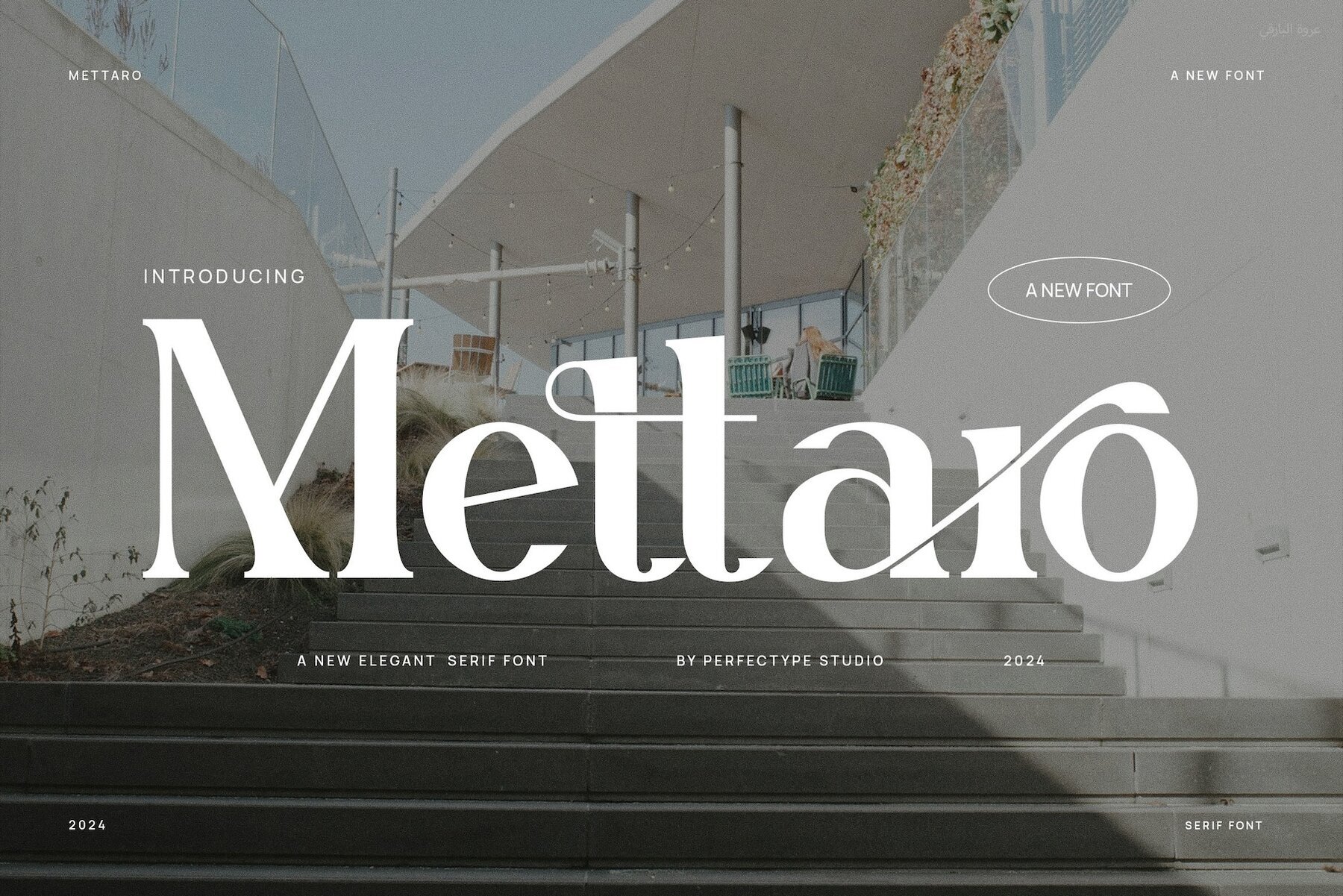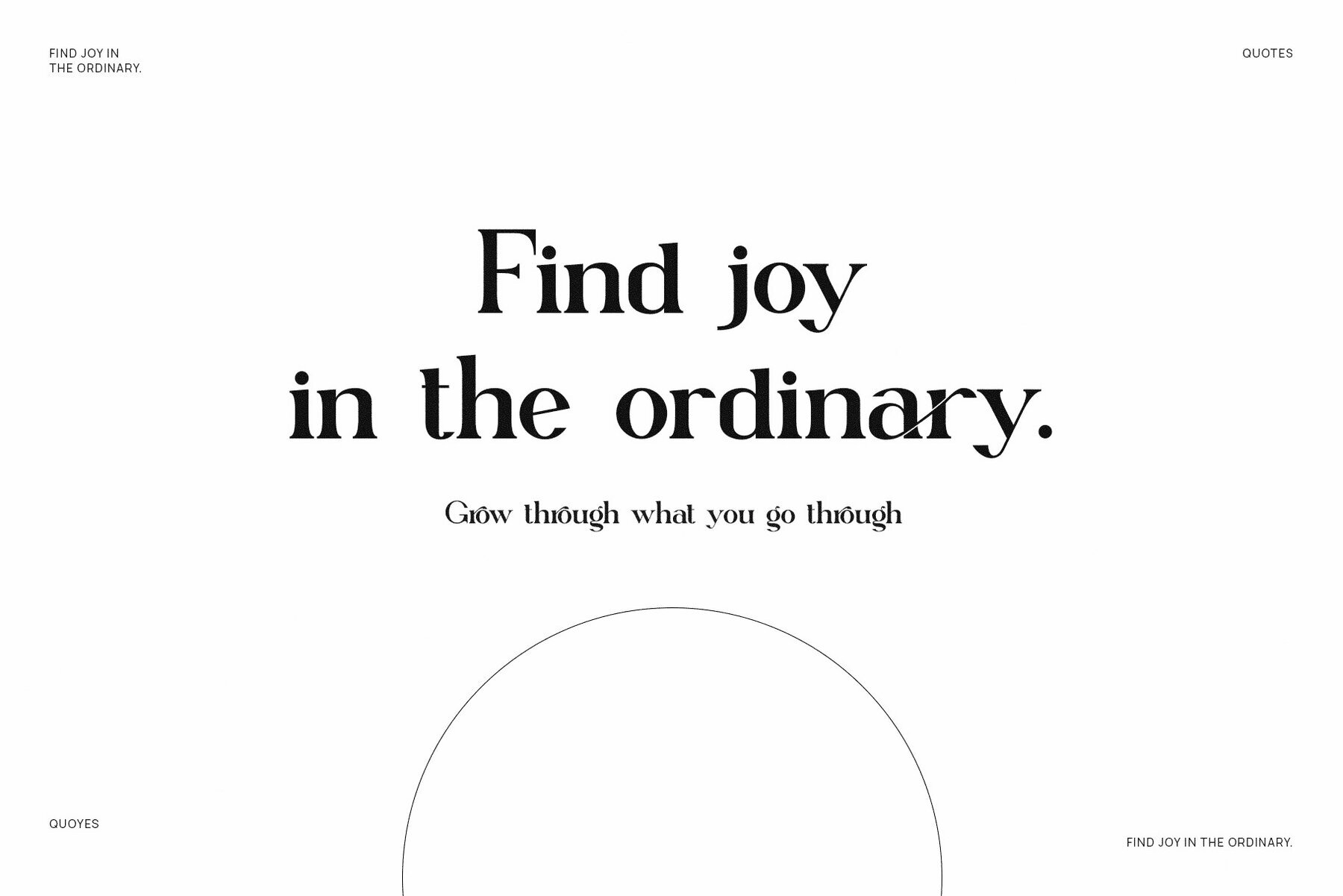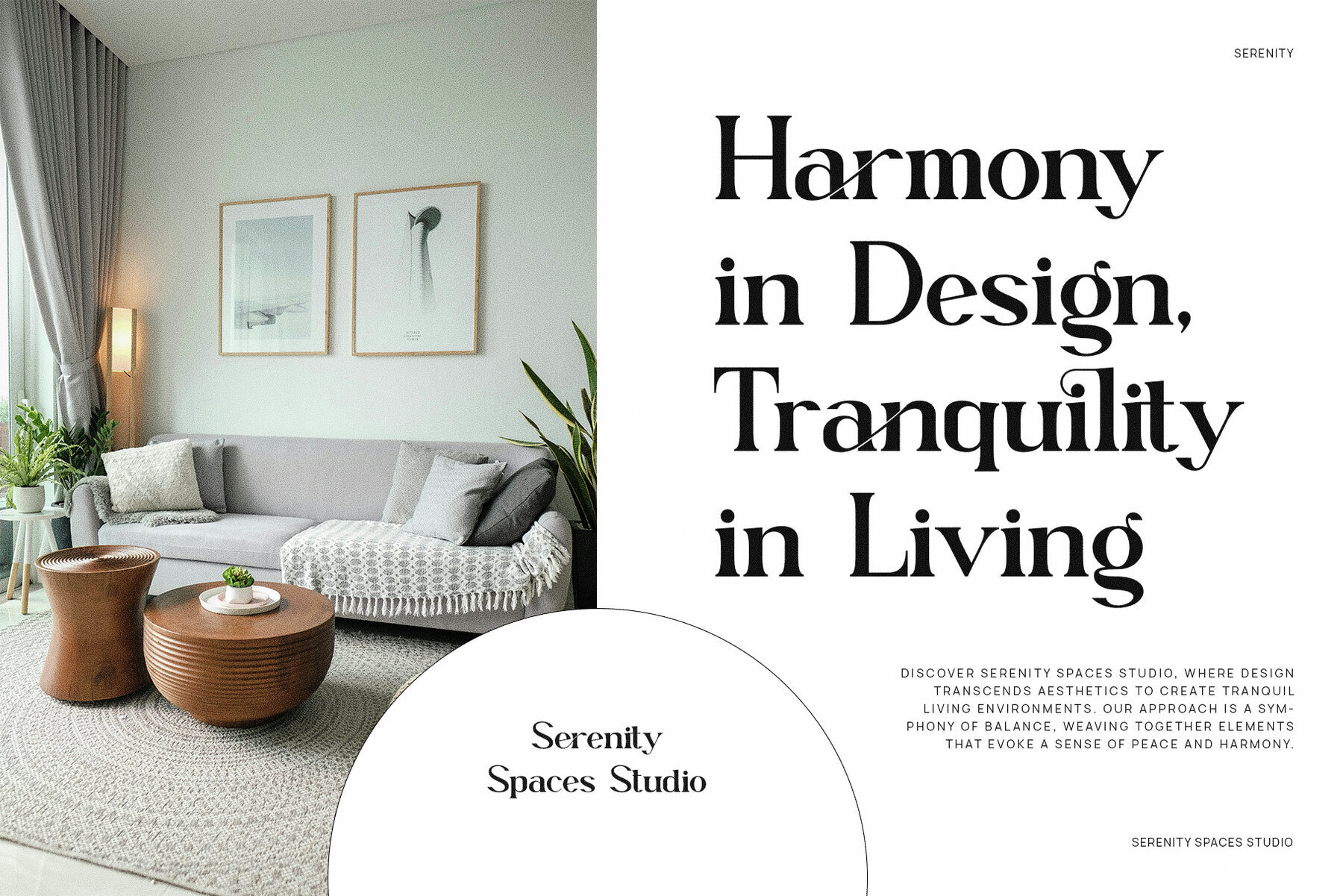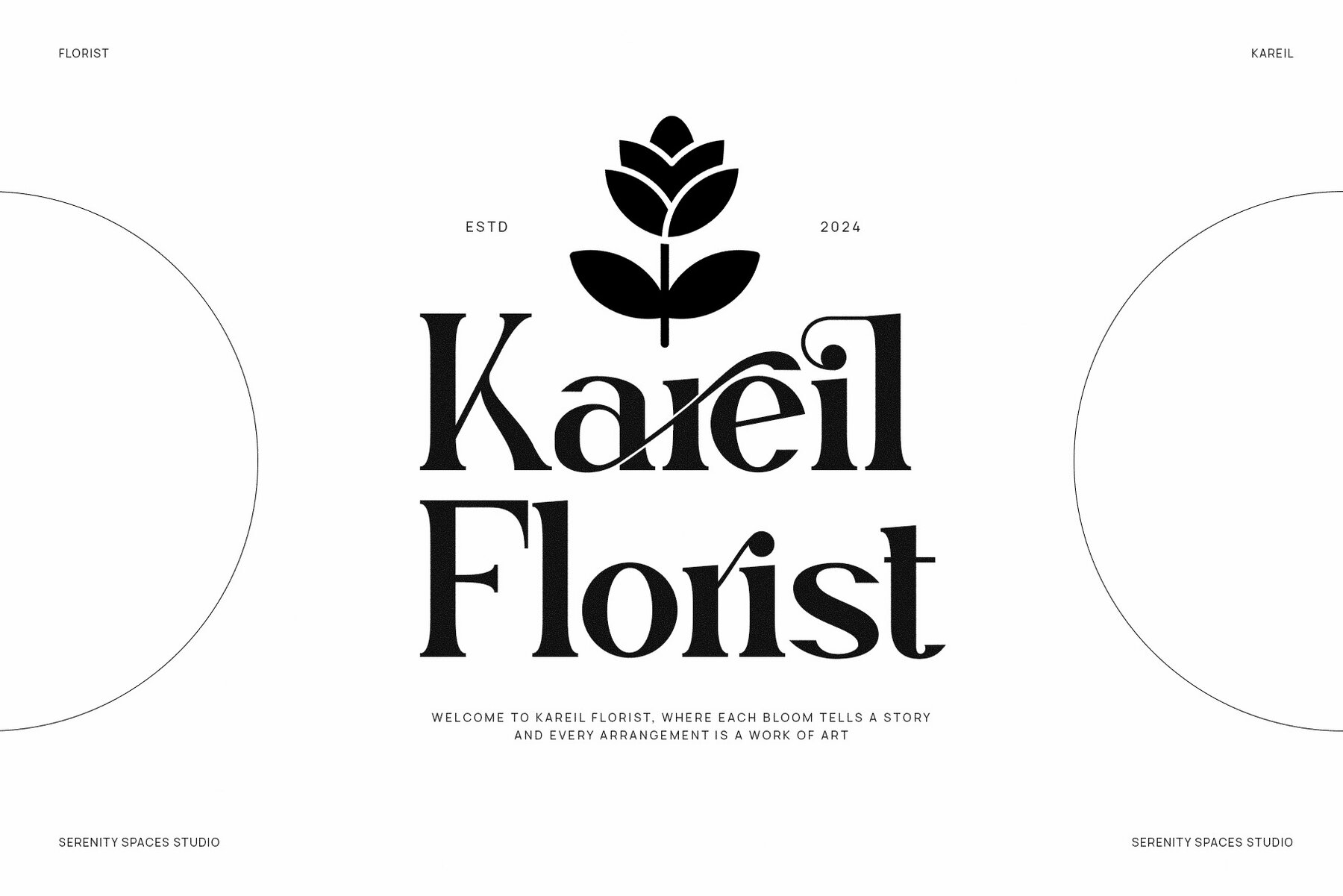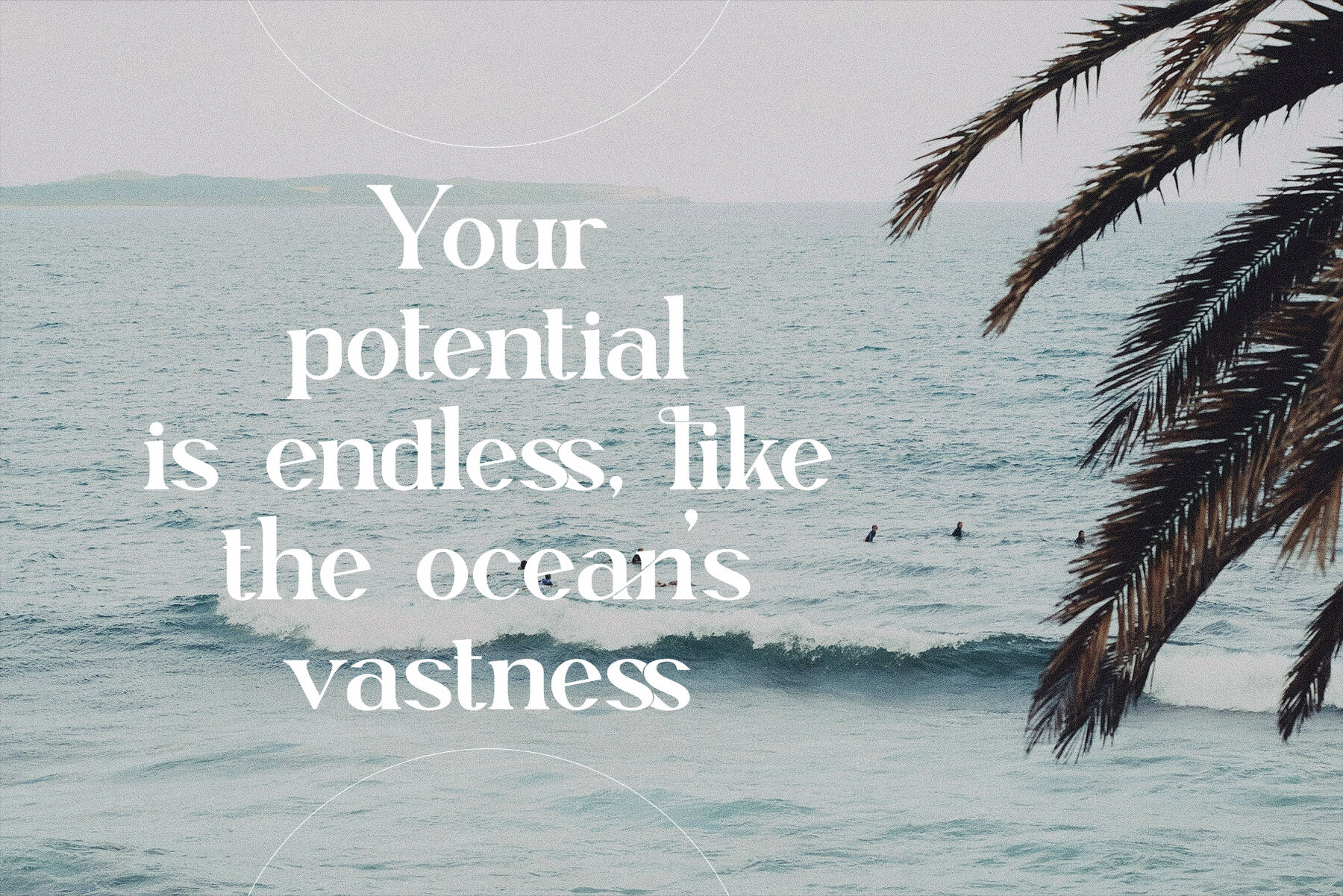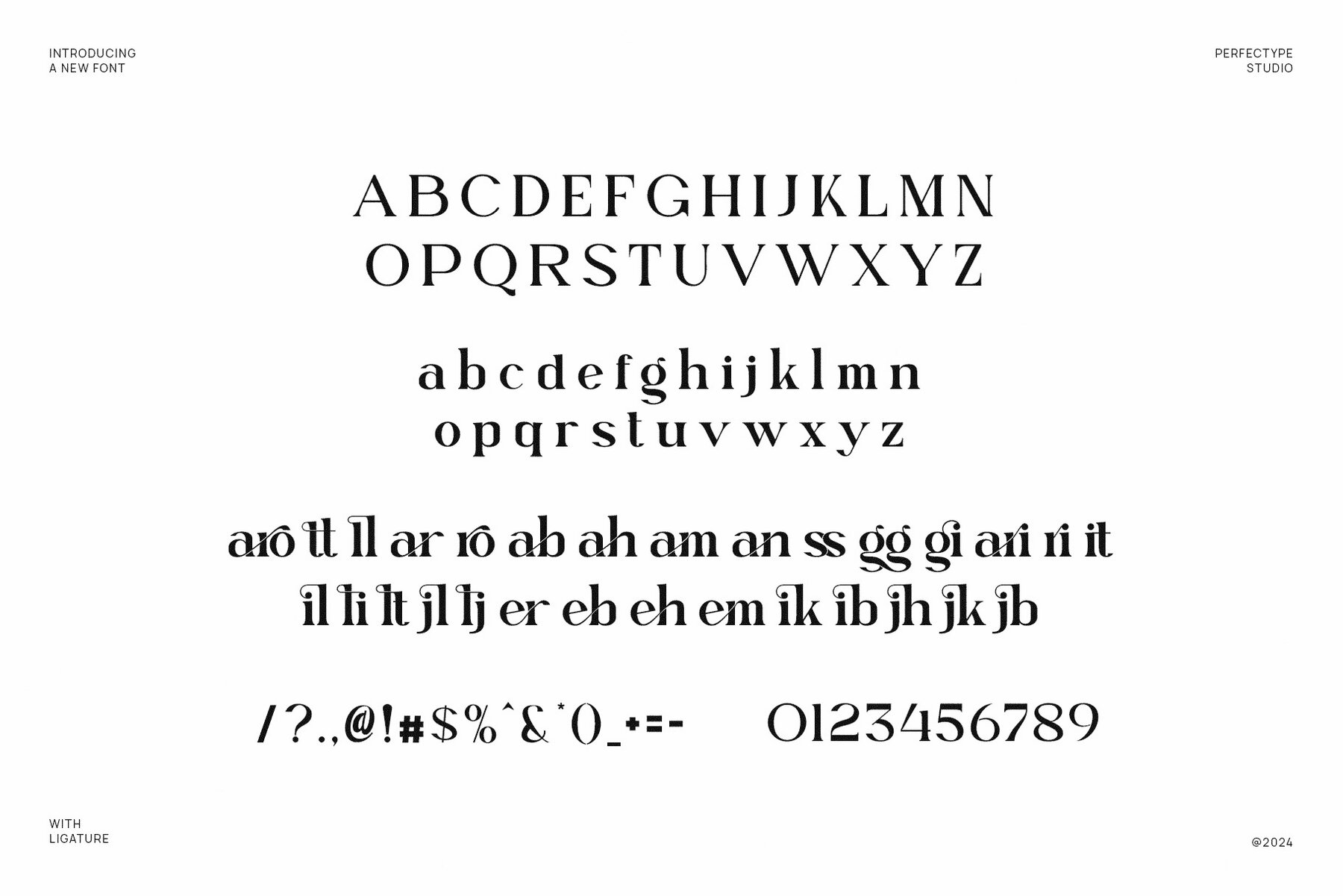
Mettaro Font
Mettaro
Mettaro is an elegant serif font that beautifully combines modern aesthetics with classic sophistication. Its clean serifs and graceful curves provide a distinctive luxury to any design project. Featuring unique character shapes along with beautiful ligatures and alternate features, Mettaro offers extensive customization options for creating seamless and stylish typography.
This versatile typeface is ideal for high-end branding, making it a great choice for logos, product packaging, and premium visual identities. Whether designing a sophisticated website, laying out an elegant magazine, or crafting eye-catching advertisements, Mettaro adds class and refinement. It performs well in both large headlines and smaller body text, ensuring readability while maintaining a polished look.
Perfect for industries that prioritize luxury and elegance, Mettaro suits fashion, food, boutique branding, and lifestyle projects. Its modern yet timeless appeal ensures it impresses in both print and digital formats. With its exceptional design and highly customizable features, the Mettaro serif font is essential for designers aiming to create refined and memorable branding in high-end projects.